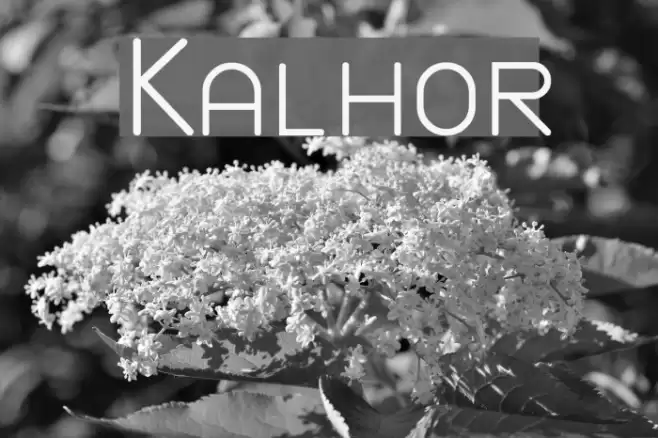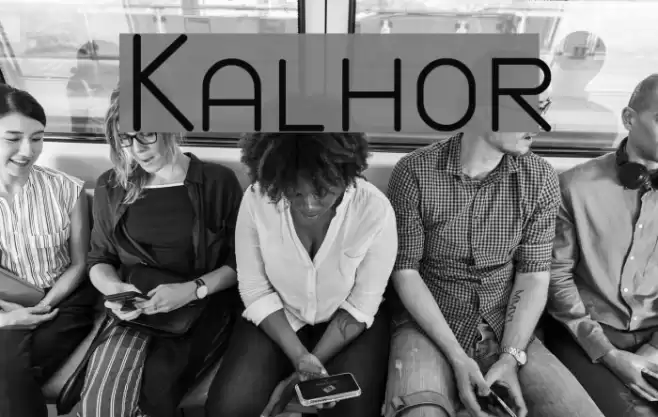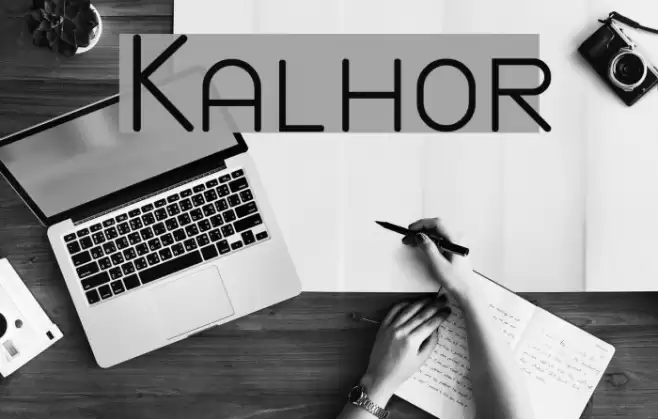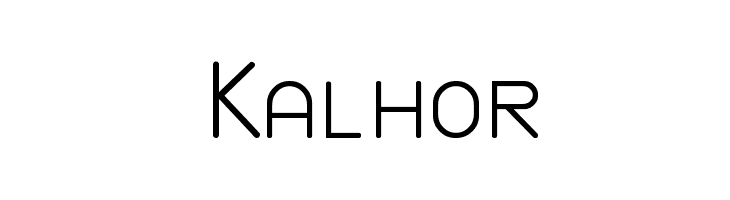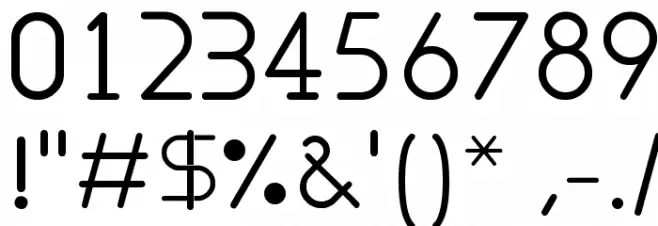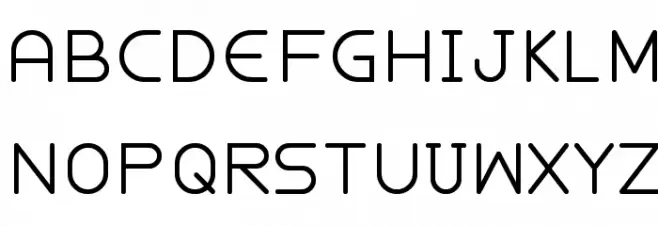
Kalhor
This font features a clean and modern design with a geometric structure. The characters are evenly spaced, providing a balanced and harmonious appearance. The strokes are consistent in thickness, giving it a uniform look. The rounded edges add a touch of softness, making it approachable and friendly. It is highly legible, even at smaller sizes, due to its clear and straightforward design. The numerals and special characters maintain the same geometric style, ensuring consistency across all elements. This font is versatile and can be used in various design contexts.
A modern, geometric sans-serif font with rounded edges and consistent stroke thickness.
- Proposed Projects: Ideal for branding, web design, user interfaces, and print materials where clarity and modernity are desired.